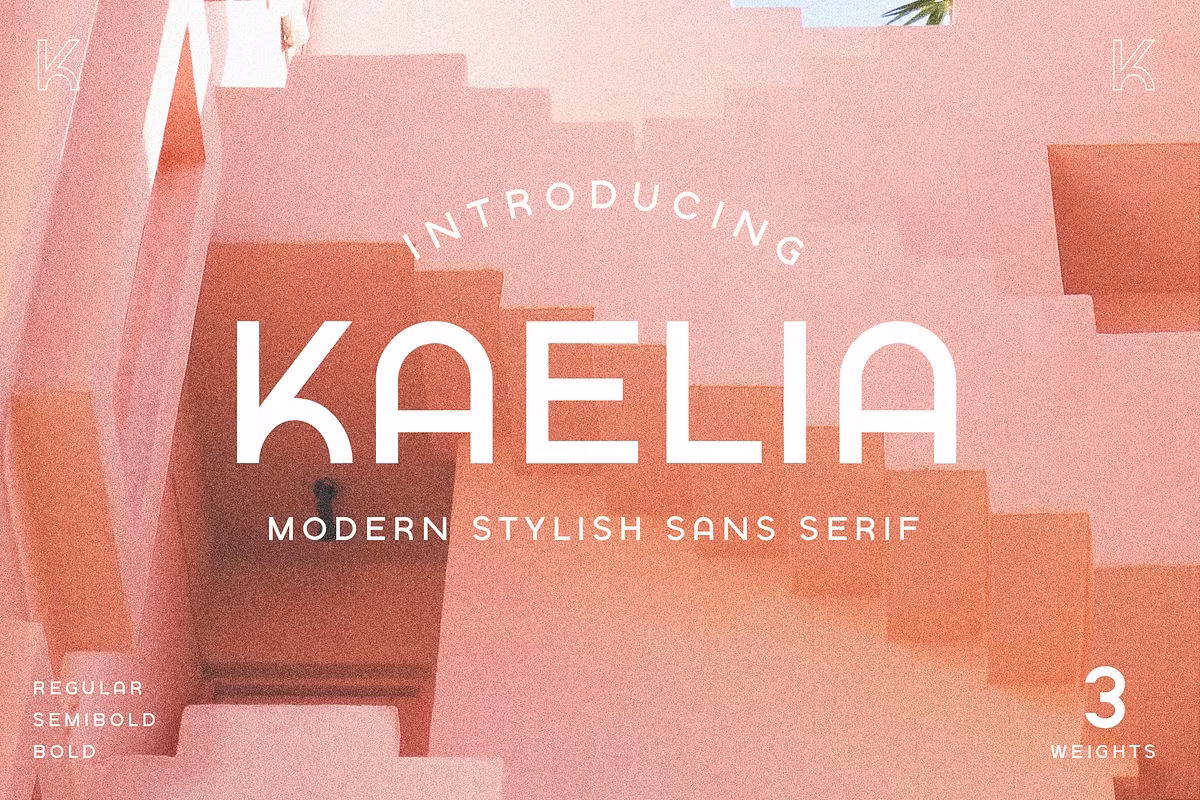
KAELIA - Simple Stylish Typeface Free Download is a clean, modern font that blends minimalism with subtle elegance. Its smooth lines and balanced proportions make it a versatile choice for branding, editorial layouts, social media graphics, packaging, and minimalist web design. Designed to convey sophistication without being overcomplicated, KAELIA is perfect for those who appreciate simplicity with a stylish edge.
Whether you’re creating a high-end logo or curating a calm, aesthetic presentation, KAELIA provides a refined typographic solution that keeps your visuals sharp and contemporary. Its effortless readability makes it suitable for both headlines and body text.